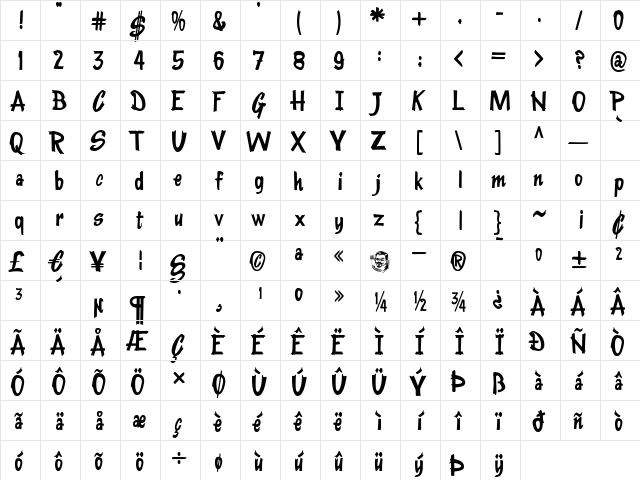
KentuckyFriedChickenFont Regular
Design Context for KentuckyFriedChickenFont Typeface
KentuckyFriedChickenFont is a composed and adaptable typeface that performs quietly and consistently across a wide range of design contexts.